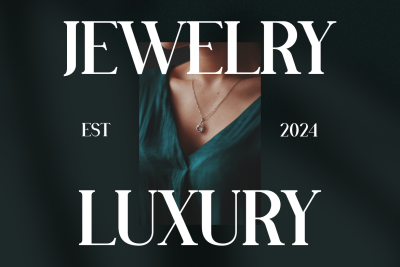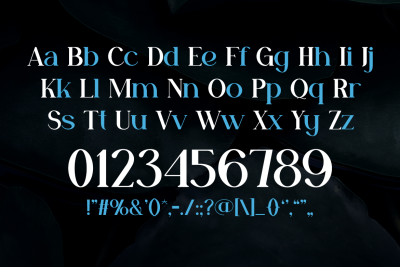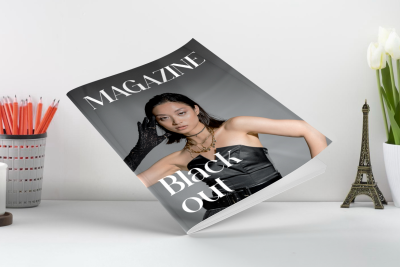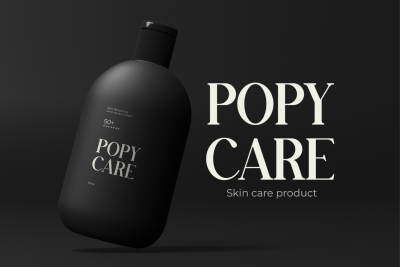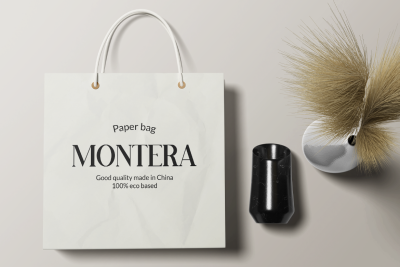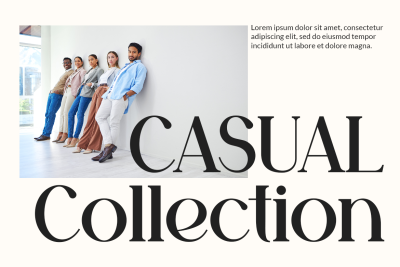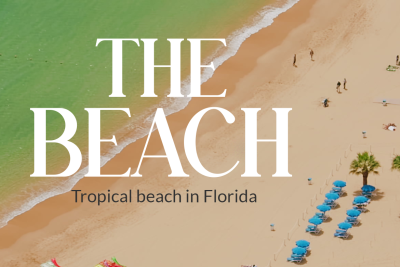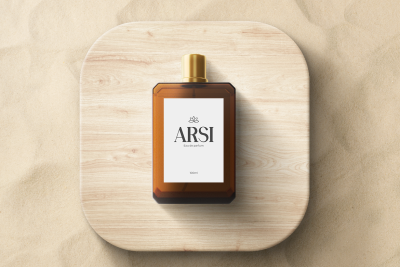
Instagram Font Syarifa is a serif typeface designed to exude elegance and sophistication. With its clean lines, subtle curves, and refined details, it creates a perfect balance of modernity and timelessness. Moreover, the font’s intricate design combines soft edges with bold strokes, making it both visually appealing and easy to read. This versatility makes Syarifa suitable for a variety of applications, from professional to creative projects.
Syarifa works well for both digital and print media. Its elegant style enhances branding materials, social media graphics, posters, and editorial layouts. Furthermore, designers love its ability to elevate visual projects with a touch of class. The subtle serif accents not only add personality but also keep the content polished and professional. Whether you’re crafting an eye-catching social media post or designing a stunning brochure, Instagram Font Syarifa ensures your message stands out with clarity and elegance.
Whether you are designing Instagram posts, wedding invitations, or luxurious packaging, Instagram Font Syarifa is sure to leave a lasting impression. Additionally, its combination of legibility and aesthetics ensures a seamless user experience across various applications. The font is particularly suited for projects requiring a sophisticated look, while still being accessible and readable.
Instagram Font Syarifa Who Is It For?
Instagram Font Syarifa is ideal for creative professionals, small business owners, and branding agencies aiming for elegant visual identities. For instance, social media influencers can enhance their Instagram feeds with its stylish typography. Similarly, graphic designers can use it for high-end projects like fashion lookbooks, lifestyle blogs, or luxury advertisements.
In addition, entrepreneurs in the beauty, wellness, and luxury sectors will benefit from its sophistication and trustworthiness. Wedding planners, florists, and boutique owners will also find it perfect for evoking romance and refinement. Moreover, marketers can create cohesive visuals to captivate audiences and boost engagement.
Ultimately, with its universal appeal and professional aesthetic, Instagram Font Syarifa is essential for anyone crafting stylish and compelling designs. It is the perfect choice for those who wish to create impactful, visually stunning content that resonates with their audience.